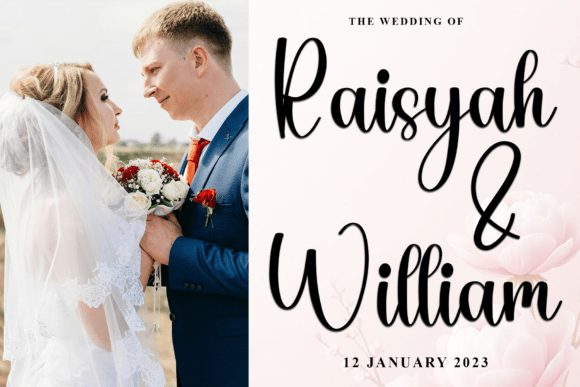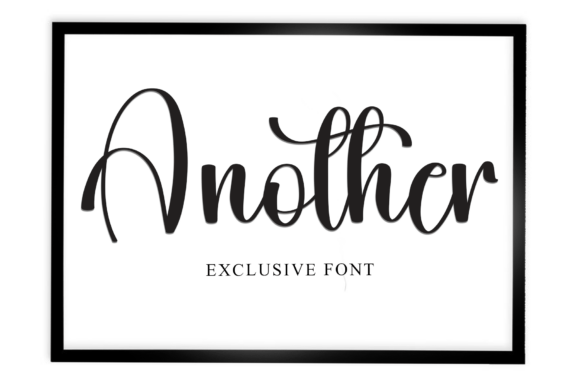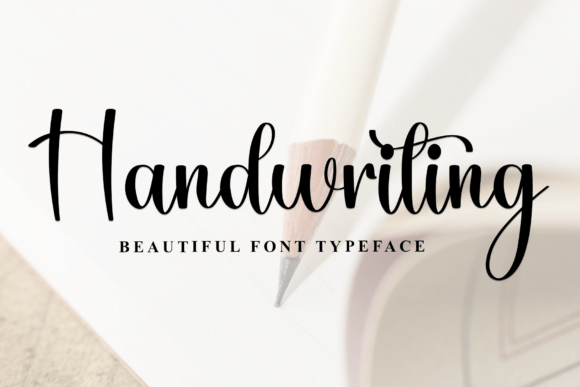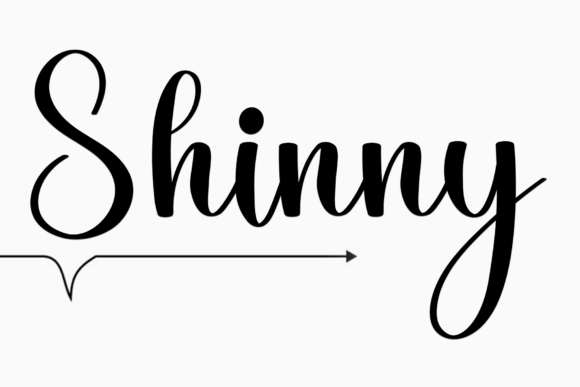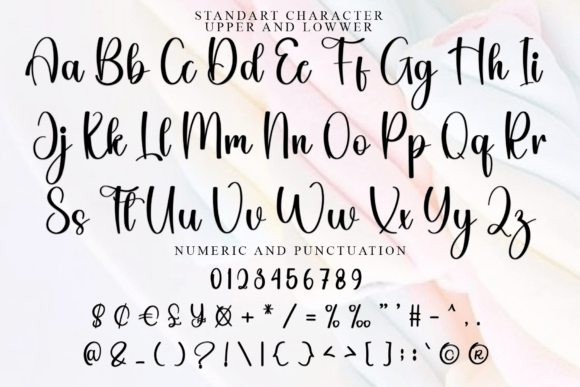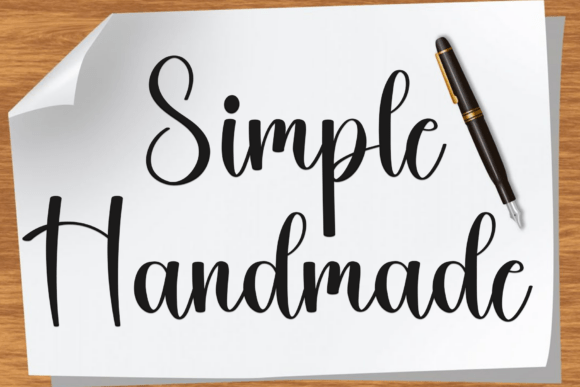
The Brother Adventure Font: A Playful Companion for Creative Projects
I’ll never forget the time I was working on a travel blog project, and my client asked for a font that would capture the essence of adventure and freedom. I scoured the internet, tried out countless fonts, but none seemed to fit the bill. That was until I stumbled upon the Brother Adventure font. With its bold strokes and lively curves, it was like a breath of fresh air – the perfect companion for creative projects that call for personality.
As a designer, I’m always on the lookout for fonts that can bring a touch of whimsy and fun to my projects. Brother Adventure does just that, and here are a few things I love about it:
- ✨ Playful and energetic vibe that’s perfect for travel blogs, inspirational quotes, and kids’ branding
- ✅ Bold strokes and lively curves that add a touch of personality to any design
- 🎉 Excellent for creative content that needs a dash of spontaneity and joy
Of course, no font is perfect, and Brother Adventure has a few quirks to keep in mind:
- ⚠️ Some letters may appear a bit cramped or uneven, especially at smaller font sizes
- 🤔 Limited availability of certain OpenType features, which may limit its use in certain design applications
The Story Behind Brother Adventure
Brother Adventure was designed by a talented type designer who wanted to capture the essence of adventure and freedom in a font. Inspired by vintage travel posters and classic adventure novels, the designer created a font that’s both playful and energetic. With its bold strokes and lively curves, Brother Adventure is the perfect companion for creative projects that call for personality.
Here are a few frequently asked questions about Brother Adventure:
- Q: What type of projects is Brother Adventure best suited for?
- A: Brother Adventure is ideal for travel blogs, inspirational quotes, kids’ branding, and creative content that calls for personality.
- Q: Does Brother Adventure come with OpenType features?
- A: Yes, Brother Adventure includes a range of OpenType features, including ligatures, stylistic alternates, and glyphs.